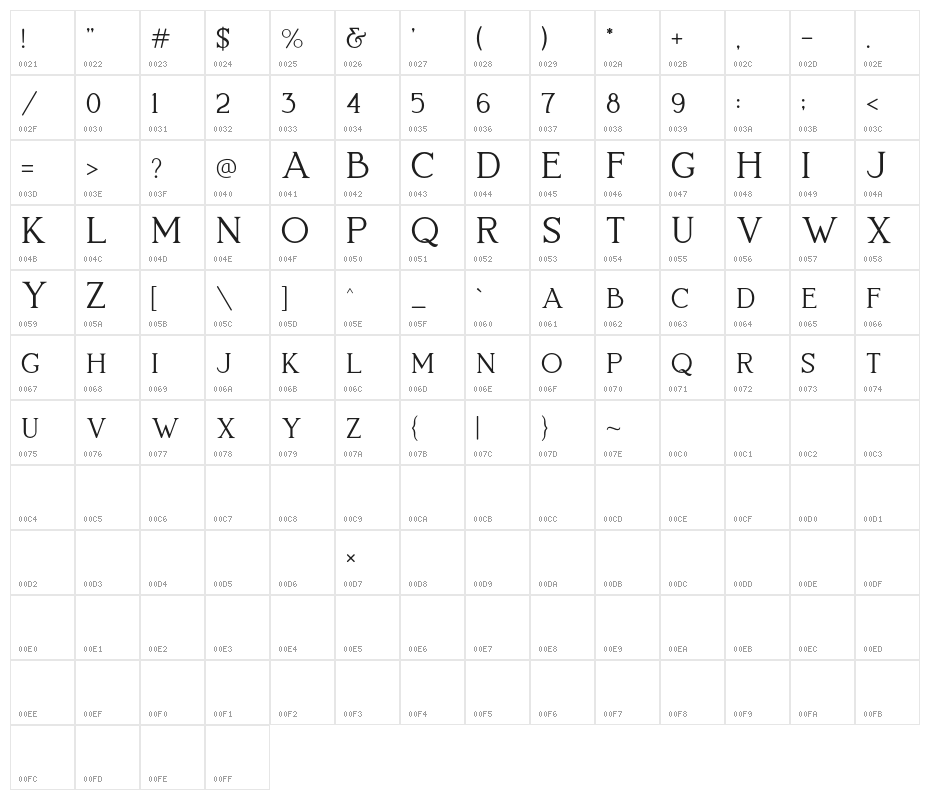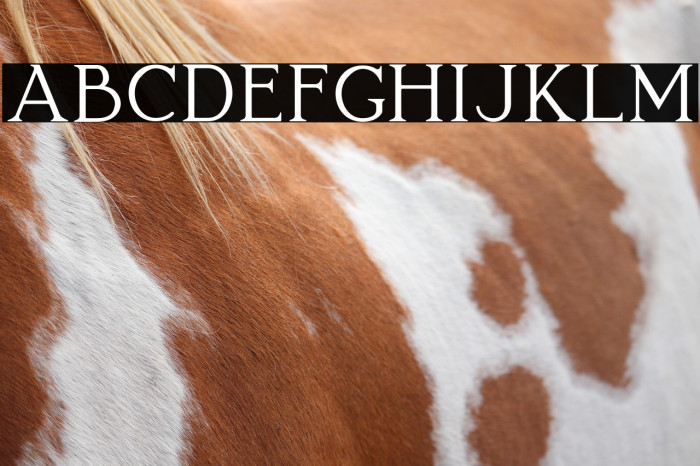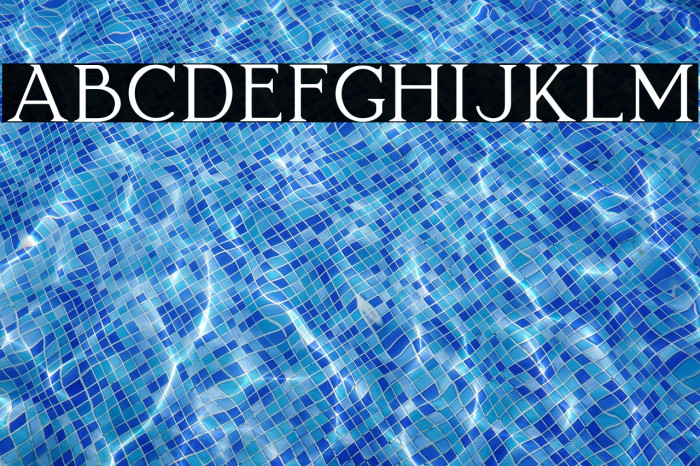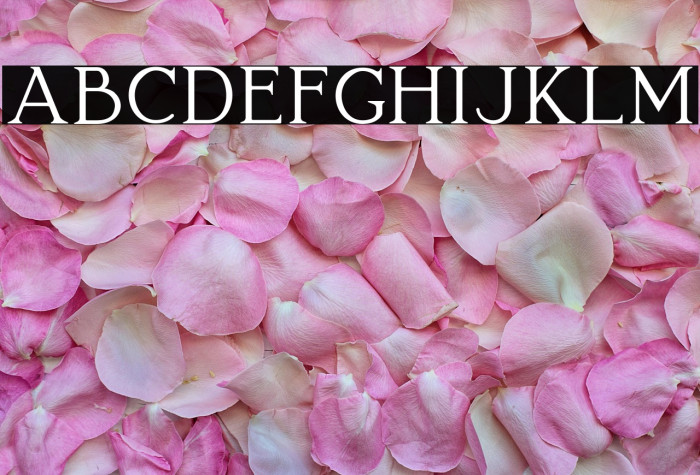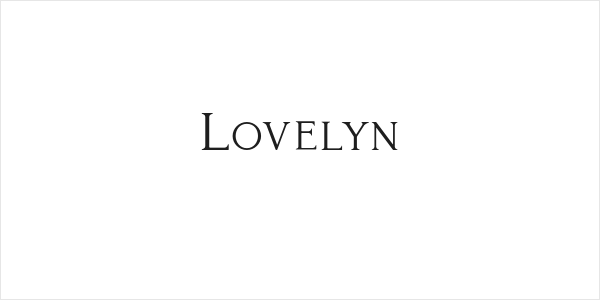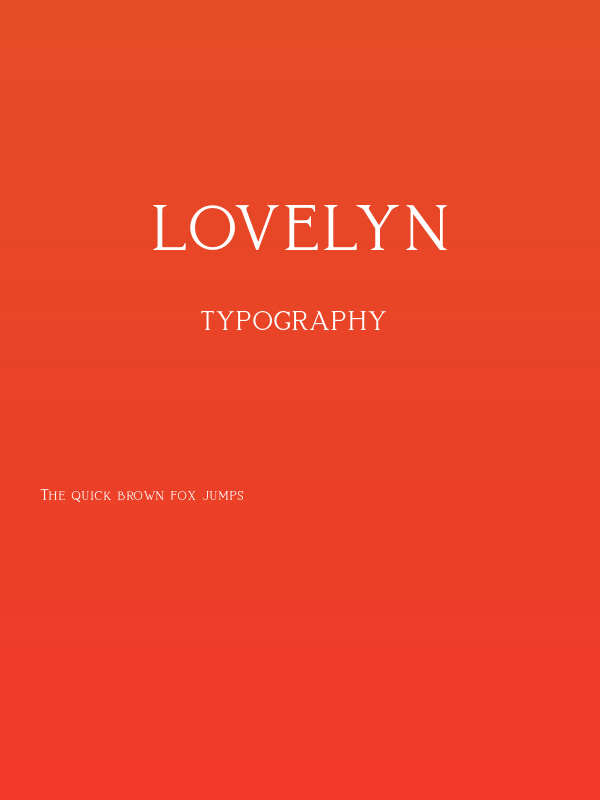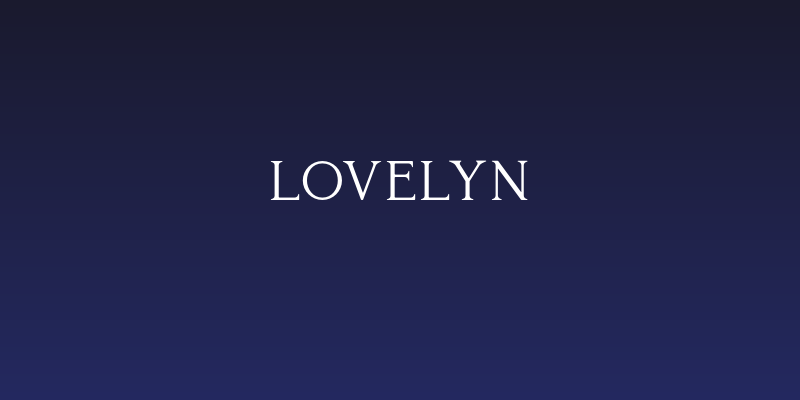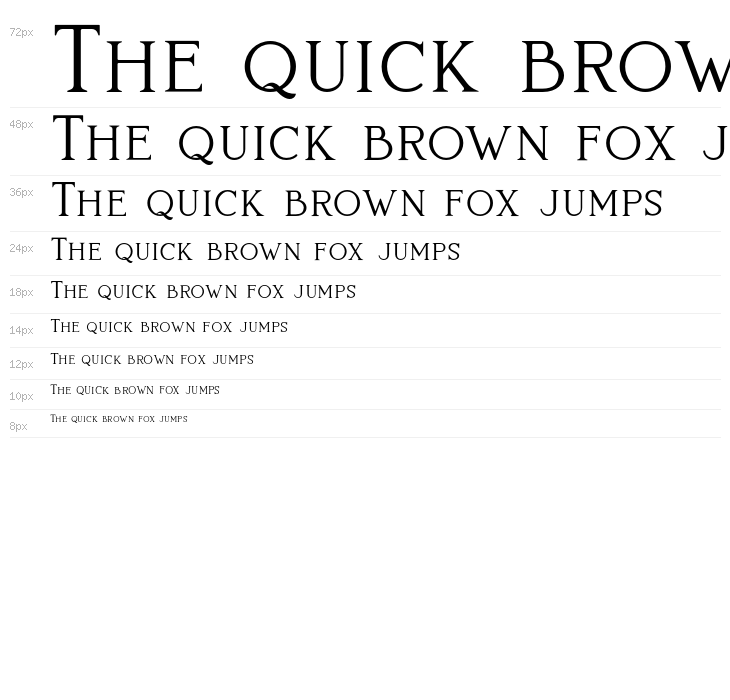
Lovelyn Font
Lovelyn Description
This font exhibits a classic serif style with elegant and refined strokes. The characters are well-proportioned, featuring subtle serifs that add a touch of sophistication. The uppercase letters are bold and commanding, while the lowercase letters maintain a graceful appearance. Numerals are clear and distinct, ensuring readability. The special characters are designed with precision, complementing the overall aesthetic. This font is versatile, suitable for both formal and creative applications, offering a timeless appeal that enhances any design project.
| Proposed Projects | Ideal for book covers, editorial design, branding, invitations, and formal documents. |